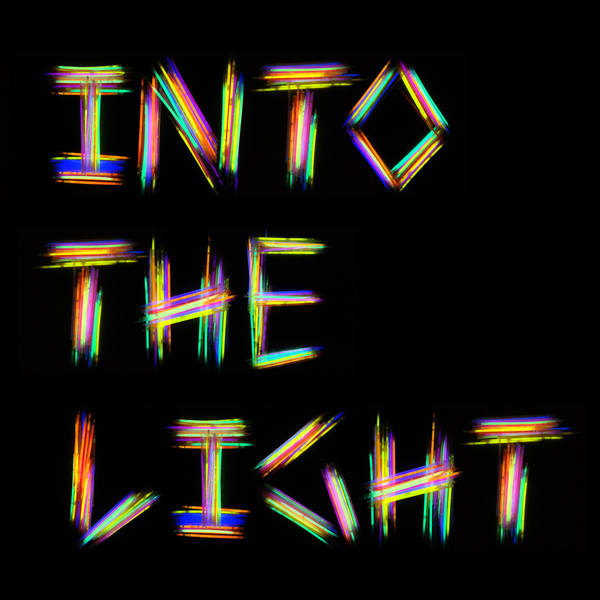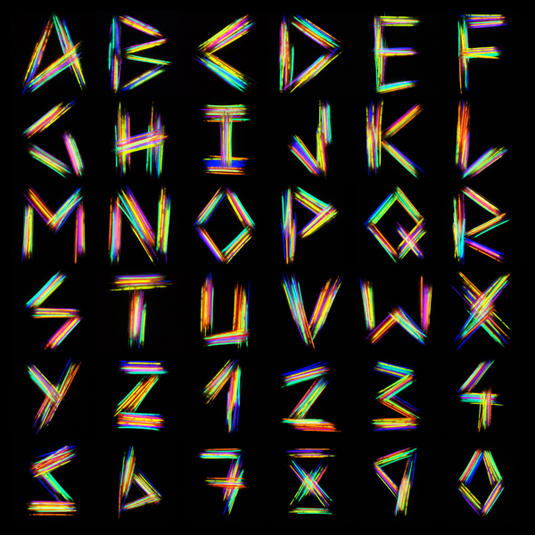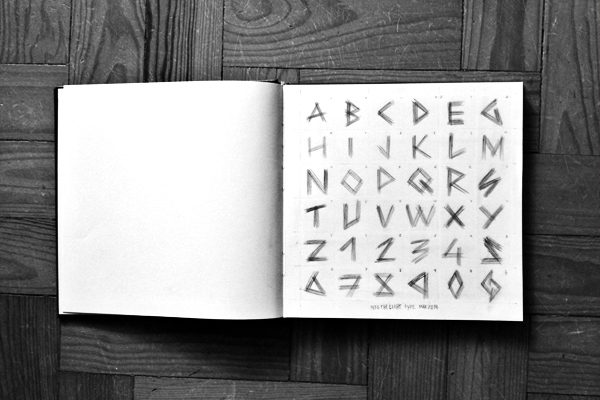
Font of the day: Into The Light
Into The Light by Joäo Paulo Pereira
Into The Light is a typeface created by Joäo Paulo Pereira with fluorescent sticks. The set consists of 27 letters, 10 numbers and one lightning bolt (obviously). They come in 3190x3190px RBG images with 300ppi, and all you gave to do to get hold of Into The Light for personal or commercial use is tweet.